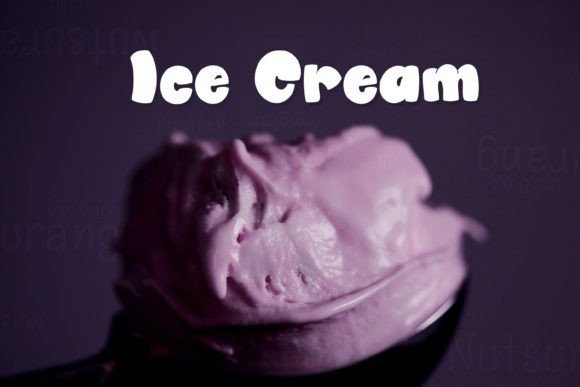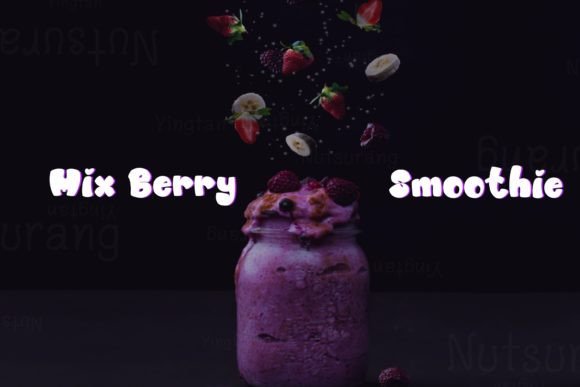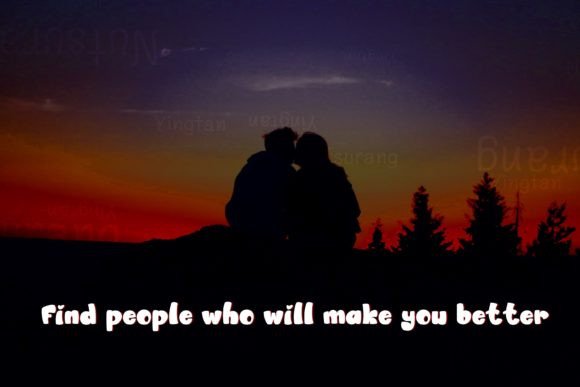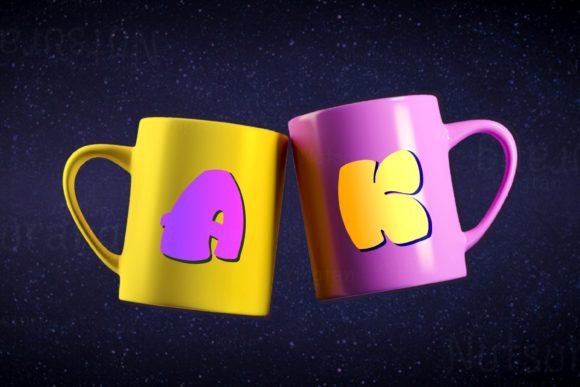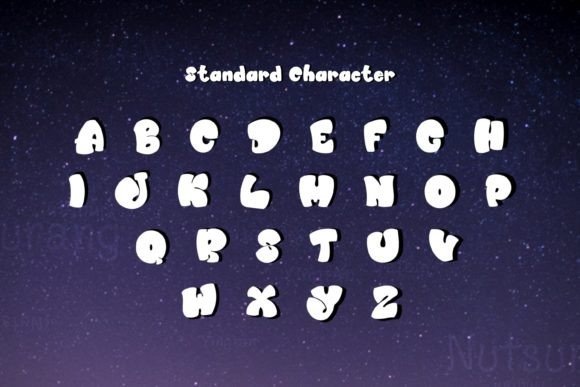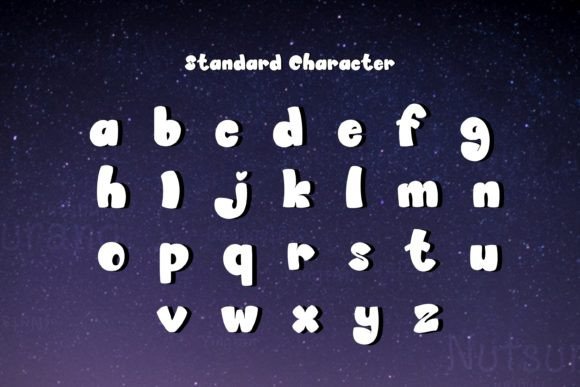
Unleash Your Creativity with Darkness Font: The Ultimate Choice for Fun and Playful Designs
Are you tired of using the same old fonts for your designs? Do you want to add a touch of fun and playfulness to your branding and packaging projects? Look no further than Darkness Font, a bold and thick font that’s sure to grab anyone’s attention. In this article, we’ll explore the features and benefits of Darkness Font, and how it can help you take your designs to the next level.
What is Darkness Font?
Darkness Font is a chubby font that’s designed to add a touch of fun and creativity to your designs. Its bold and thick letters make it perfect for creating eye-catching headlines, titles, and slogans that will stand out from the crowd. Whether you’re working on a branding project, packaging design, or social media graphics, Darkness Font is the perfect choice.
Key Features of Darkness Font
- Bold and Thick Letters: Darkness Font features bold and thick letters that are sure to grab attention.
- Fun and Playful: The font’s chubby design gives it a fun and playful feel that’s perfect for designs that need to stand out.
- Versatile: Darkness Font can be used on a variety of branding and packaging projects, from logos and headlines to social media graphics and more.
- Easy to Read: Despite its bold design, Darkness Font is easy to read, making it perfect for use on a variety of materials.
Benefits of Using Darkness Font
So why should you choose Darkness Font for your designs? Here are just a few benefits of using this amazing font:
- Adds a Touch of Fun and Playfulness: Darkness Font is the perfect way to add a touch of fun and playfulness to your designs.
- Grabs Attention: The font’s bold and thick design is sure to grab attention and make your designs stand out.
- Versatile: Darkness Font can be used on a variety of projects, from branding and packaging to social media graphics and more.
Tips and Tricks for Getting the Most out of Darkness Font
Here are a few tips and tricks for getting the most out of Darkness Font:
- Use it for Headlines and Titles: Darkness Font is perfect for use on headlines and titles, where its bold and thick design can really make an impact.
- Experiment with Different Colors: Experiment with different colors to find the one that works best for your design.
- Pair it with Other Fonts: Pair Darkness Font with other fonts to create a unique and interesting design.
Darkness Font is a bold and thick font that’s perfect for adding a touch of fun and playfulness to your designs. Its versatile design makes it suitable for use on a variety of branding and packaging projects, from logos and headlines to social media graphics and more. With its ease of use and flexibility, Darkness Font is a must-have for any designer or crafter looking to take their designs to the next level.